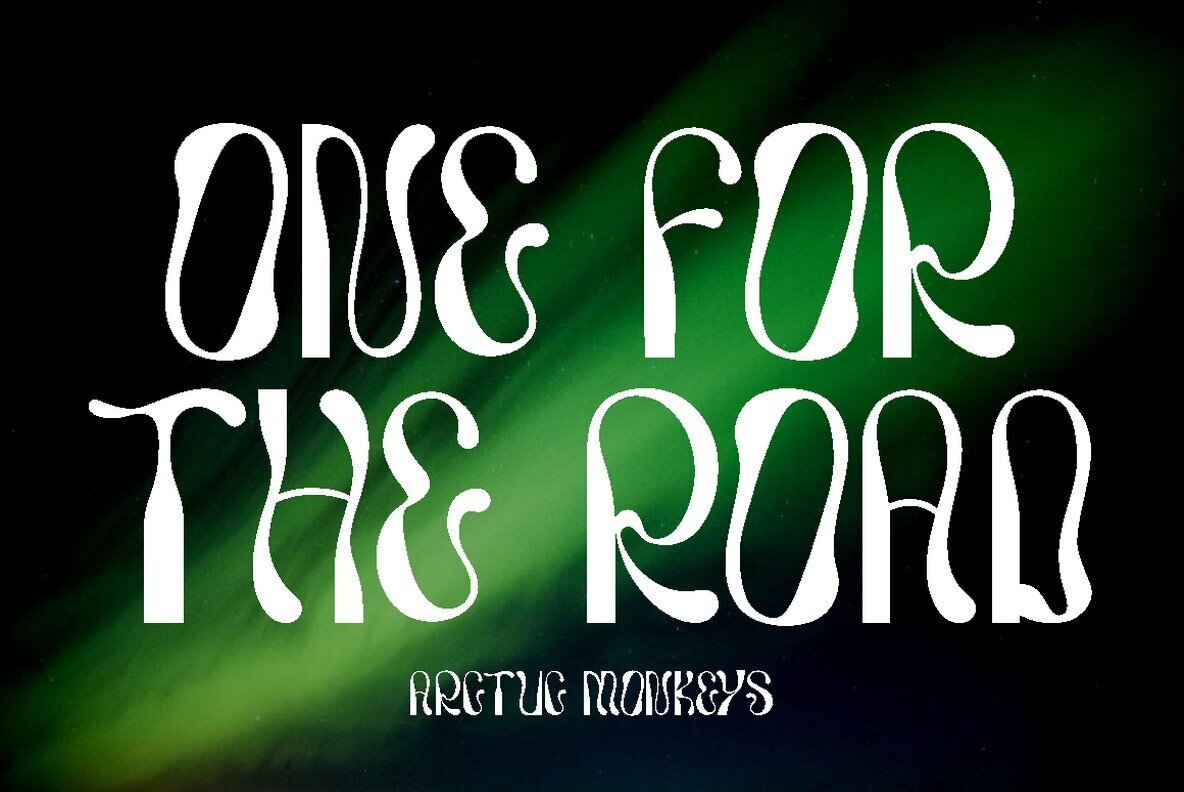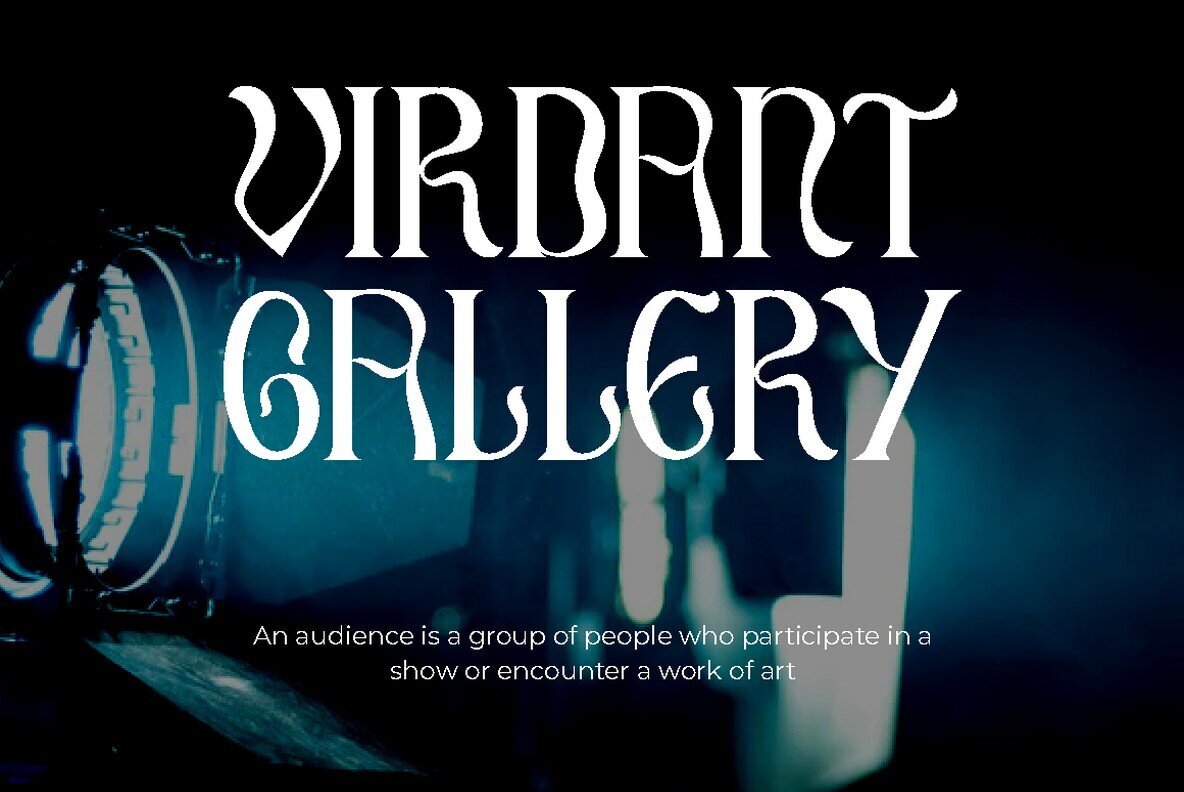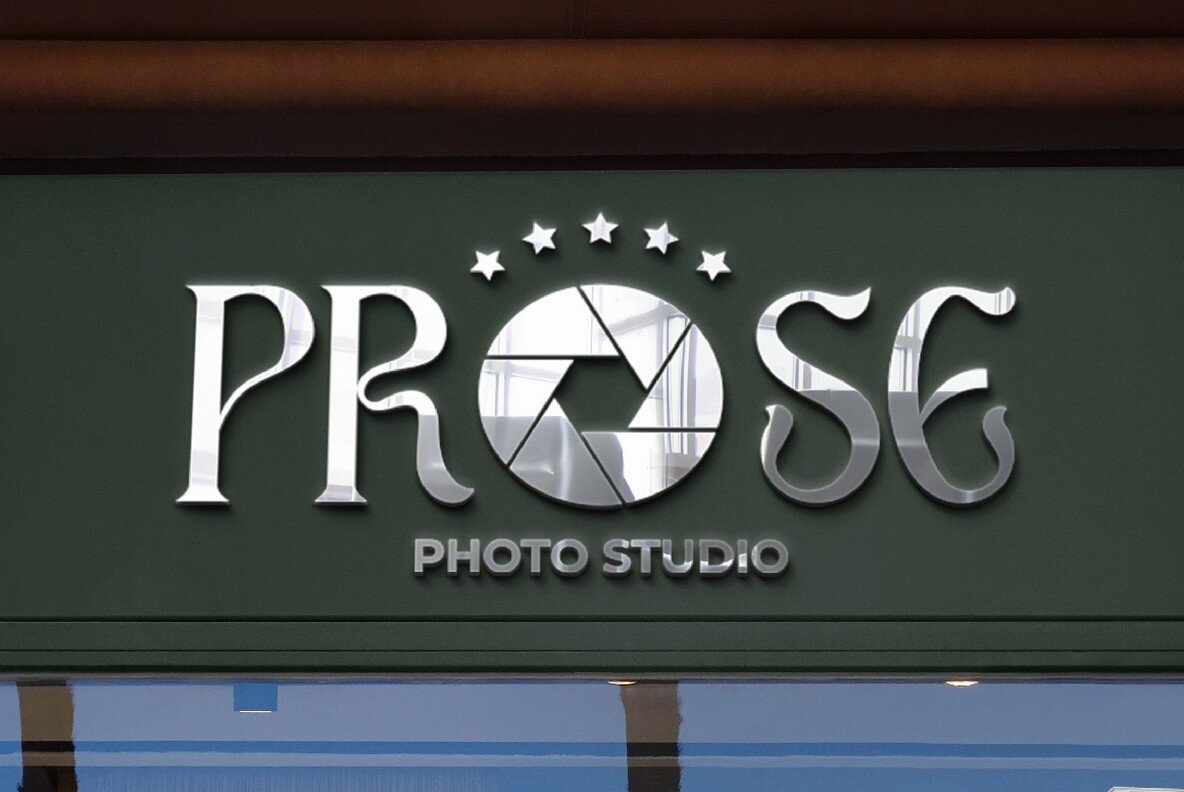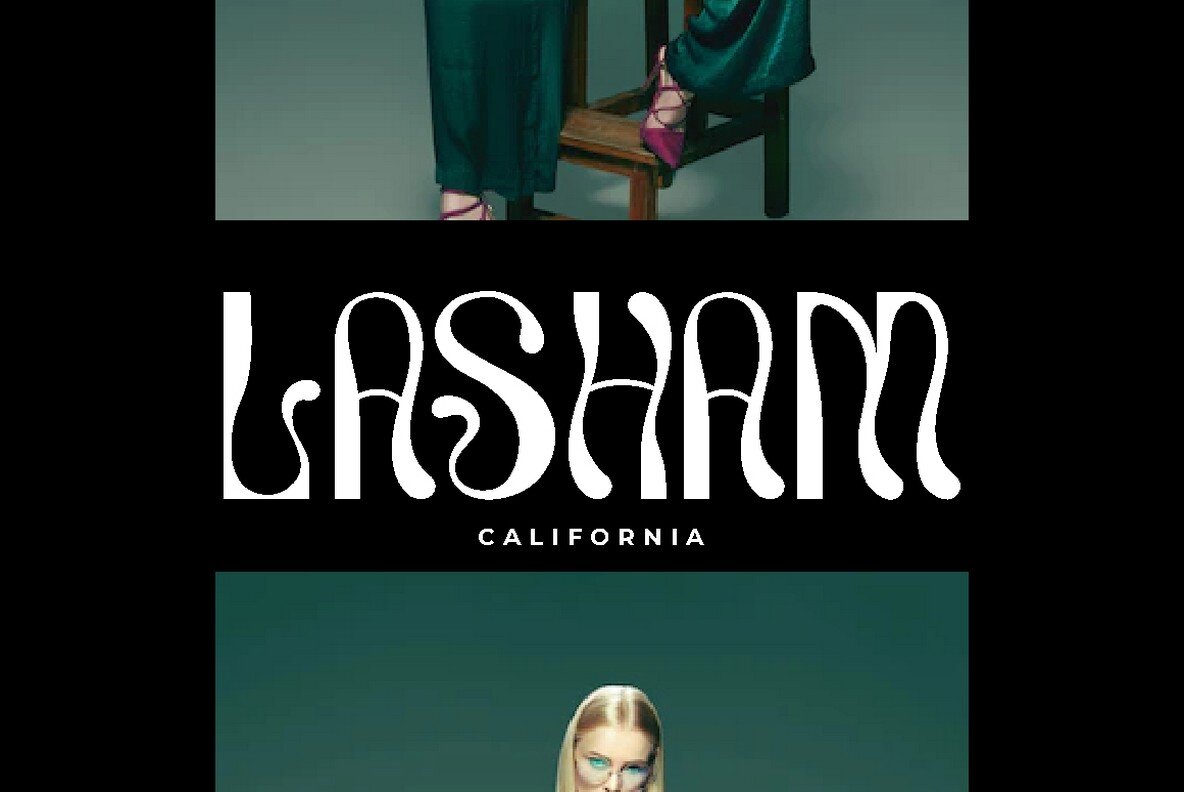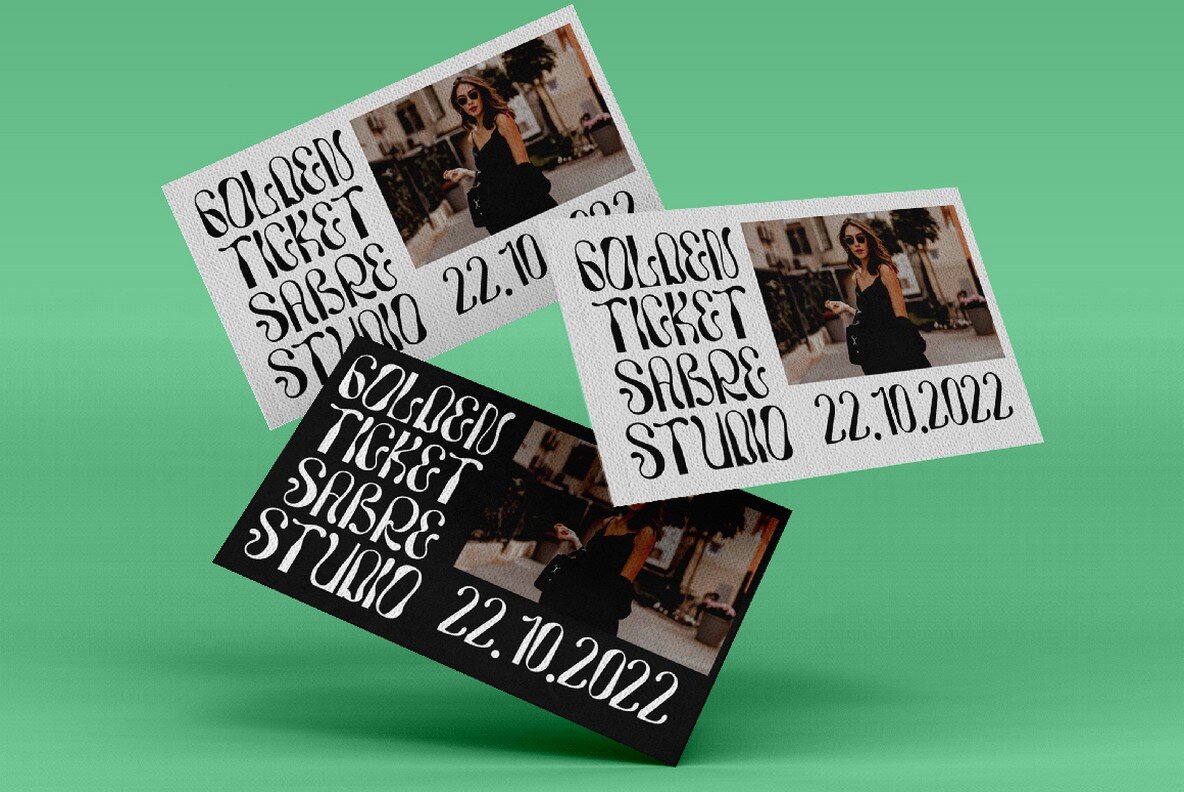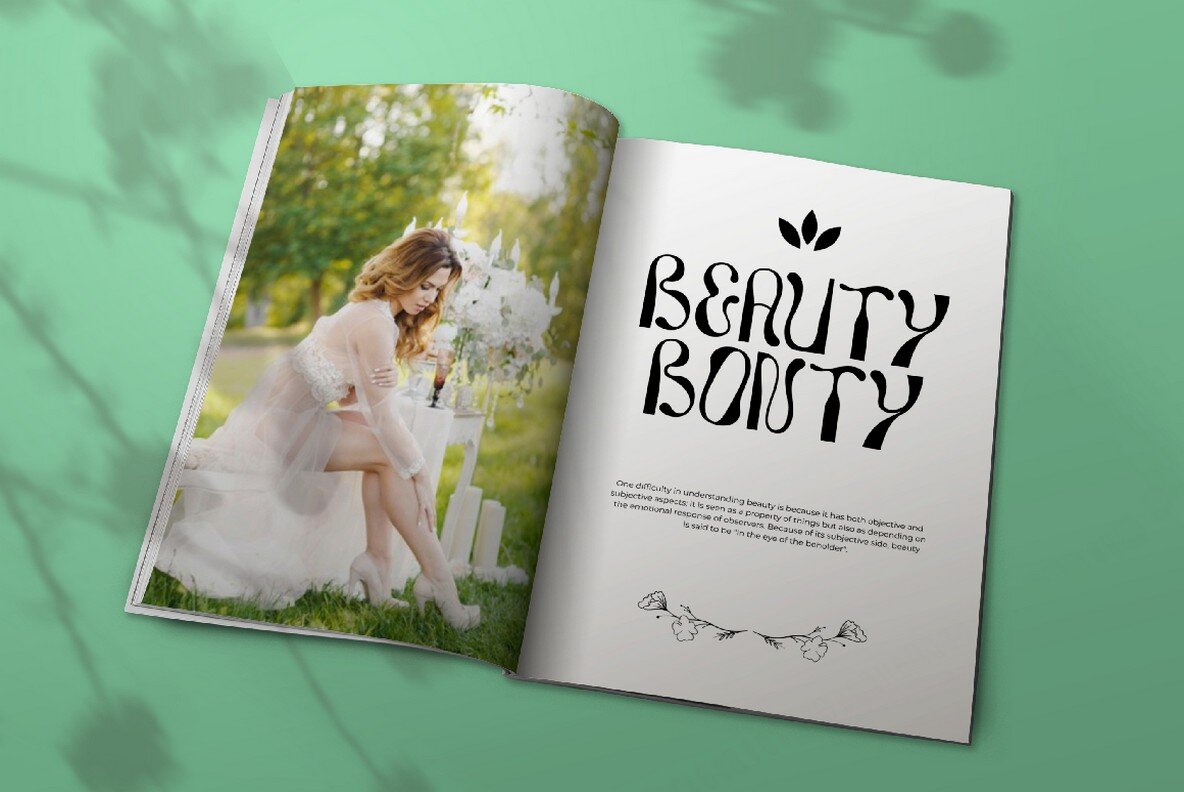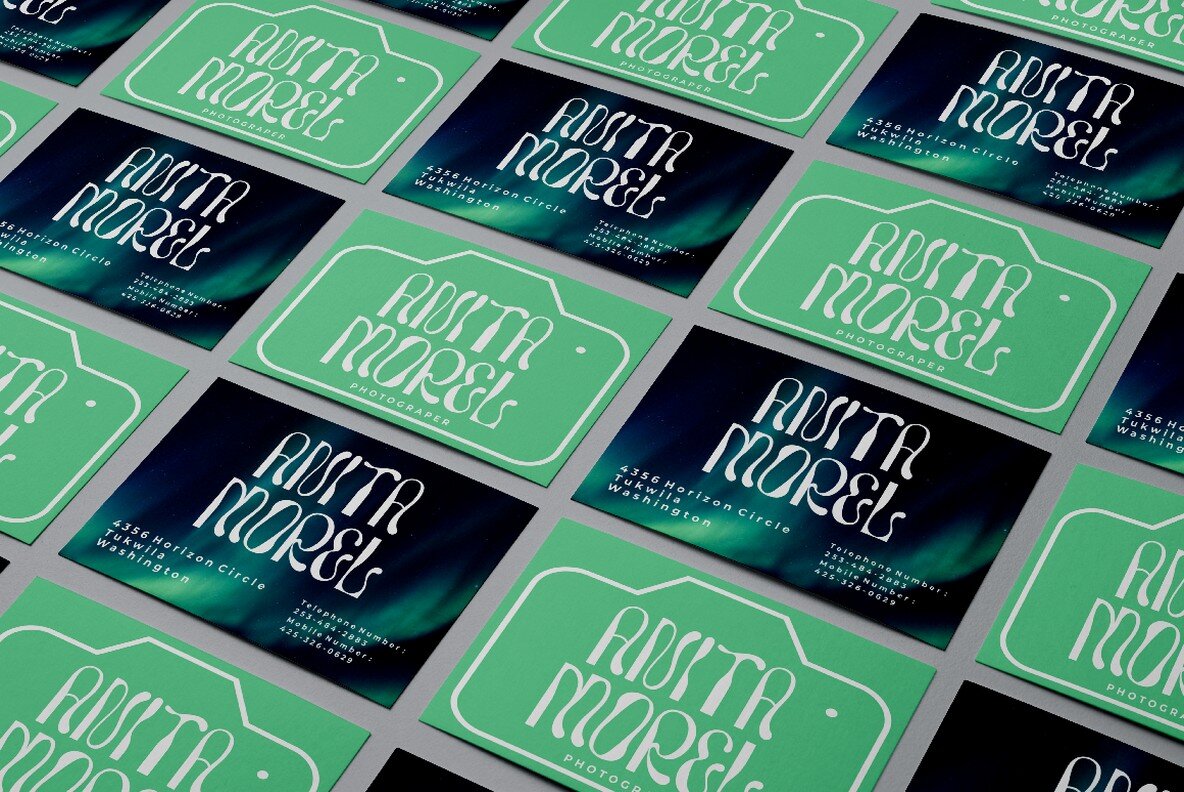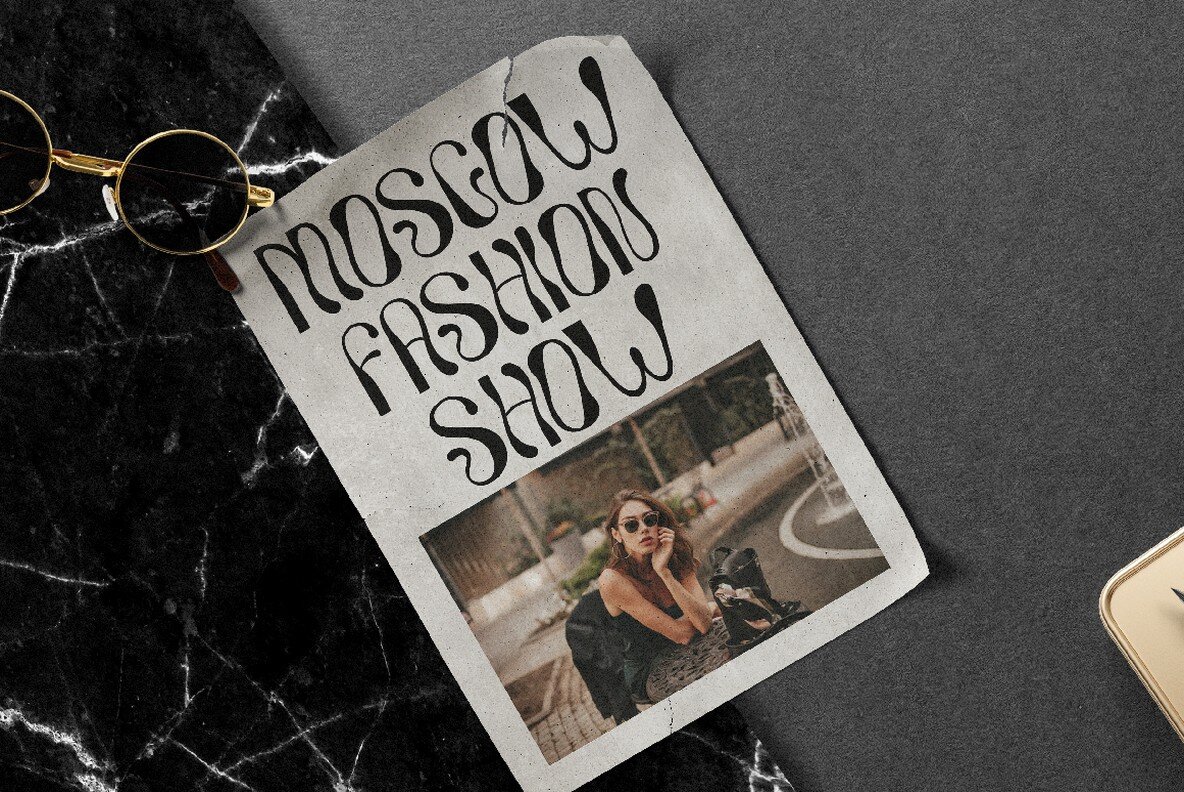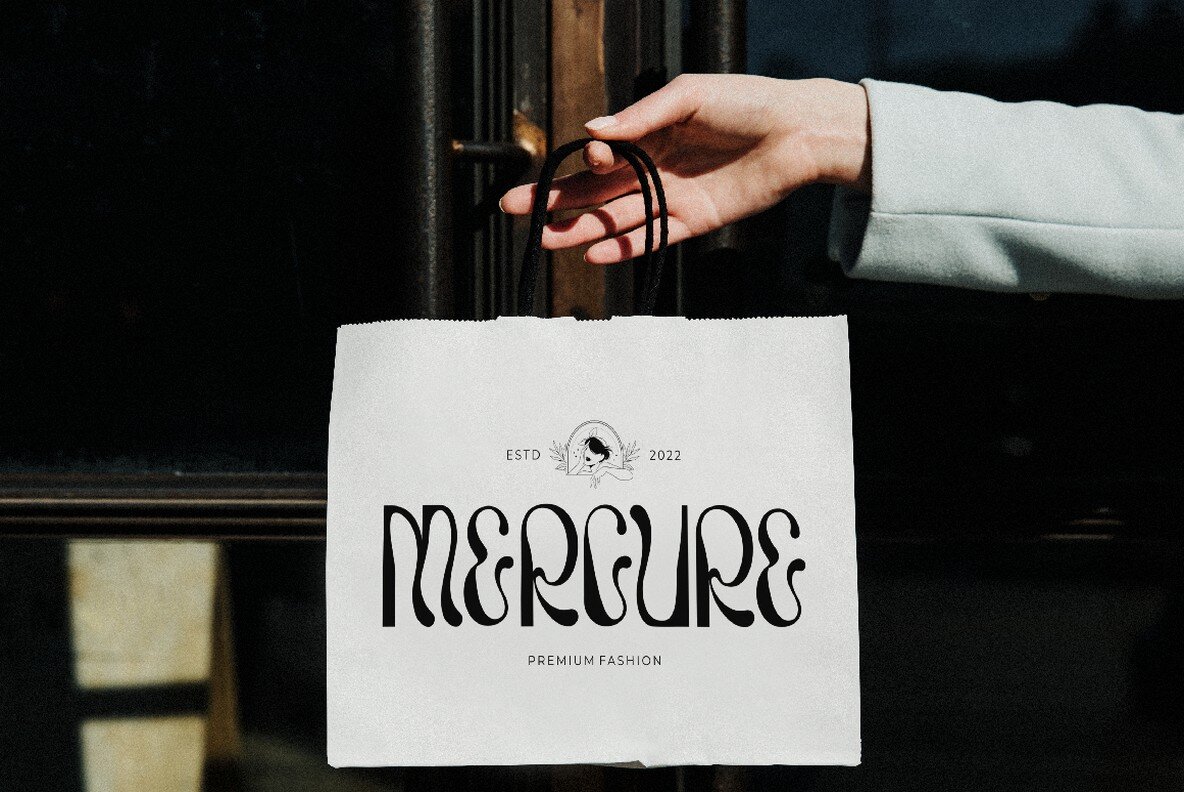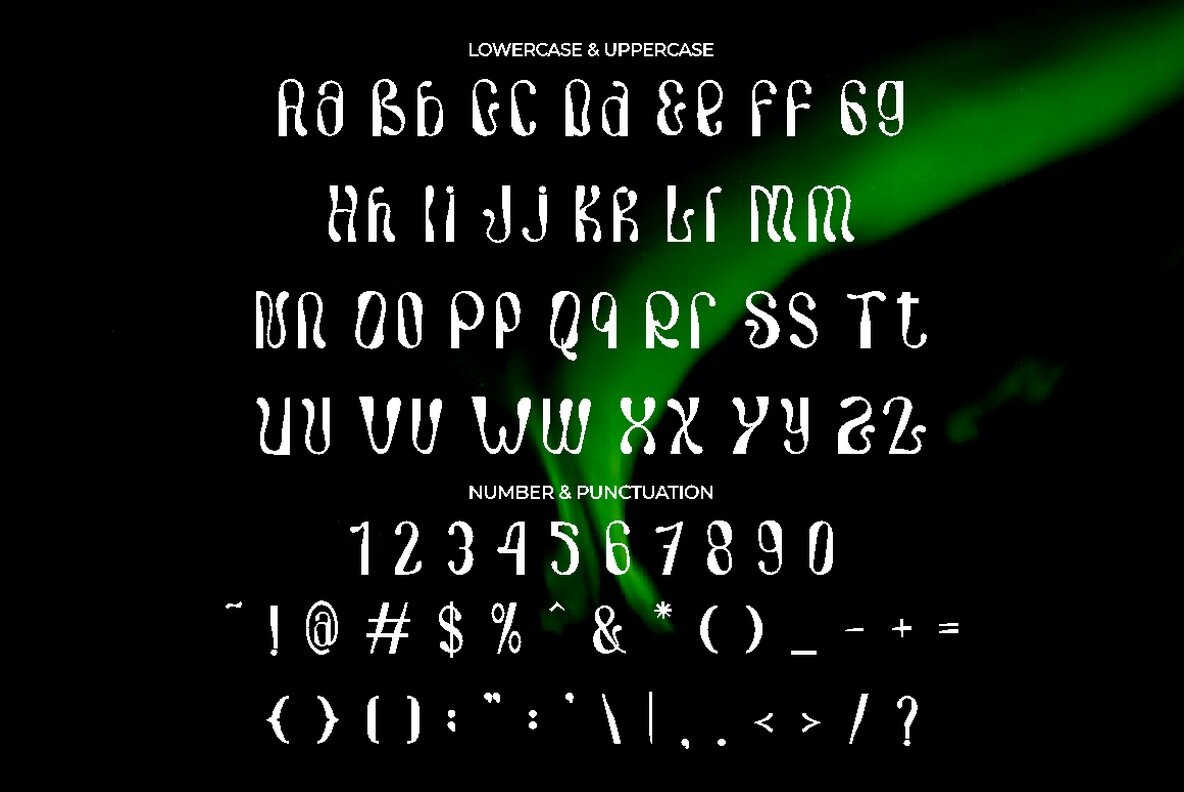
Superia Aurora Font
Superia Aurora
Superia Aurora is a unique and modern display font that combines classic elegance with a touch of fun and trendiness. The font features several variations, including ligatures, that make it stand out from other display fonts.
Inspired by elegant typefaces and posters, Superia Aurora is perfect for a range of design projects, including album covers, posters, labels, t-shirts, apparel, signage, quotes, logos, greeting cards, logotypes, and more.